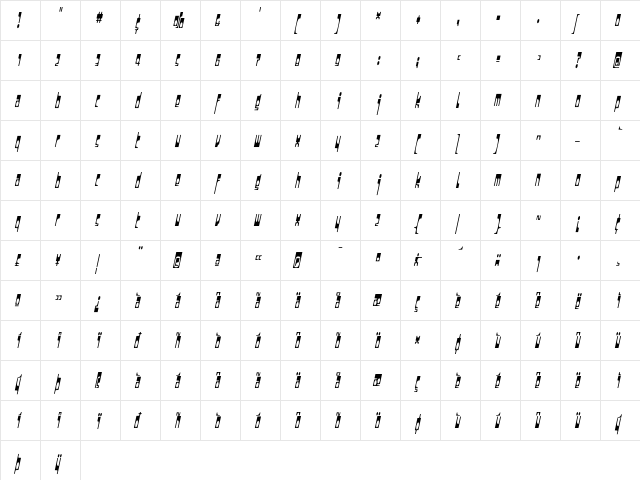
Darkside Italic
Design Context for Darkside Typeface
Darkside offers clean, dependable letterforms without strong stylistic allegiance, making it a practical choice for designers who need flexibility. Its italic angle brings a sense of urgency and motion to the letterforms.
Pro Tip: Try Darkside for annotation and caption copy alongside an upright companion — the contrast in angle creates a dynamic but ordered typographic system.